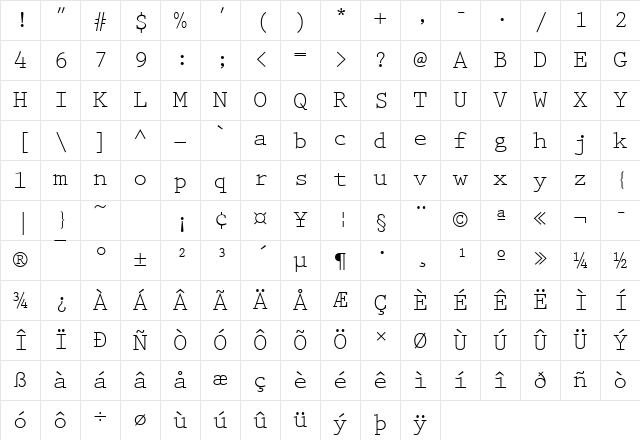
Prestige Becker Regular
Prestige Becker Family
Design Context for Prestige Becker
Prestige Becker is a composed and adaptable typeface that performs quietly and consistently across a wide range of design contexts.